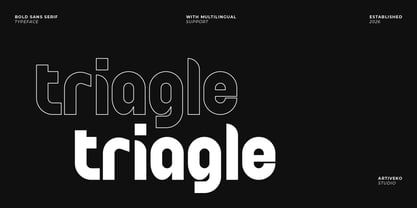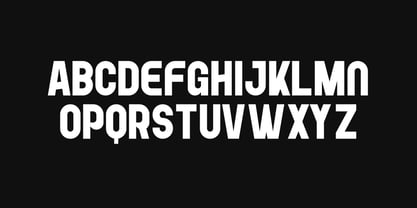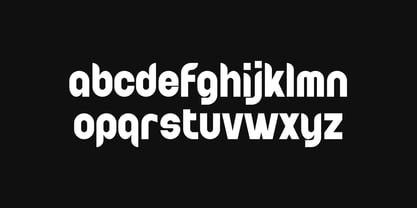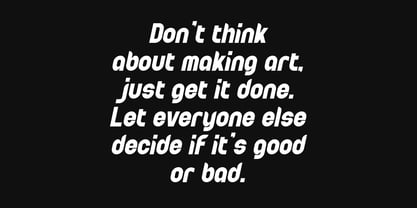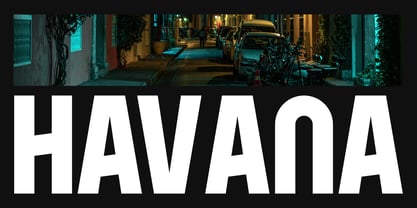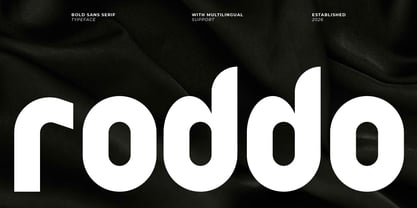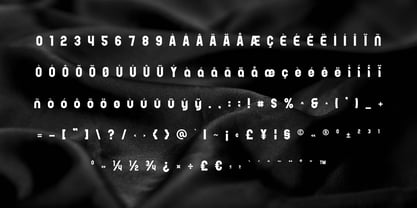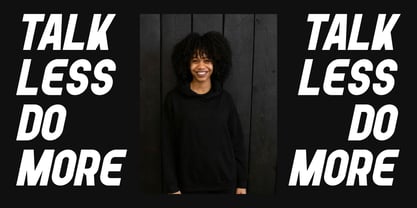
Roddo
by Artiveko
The Roddo Font Family was designed by Iwan Alwan and published by Artiveko. Roddo contains 2 styles and family package options. More about this family
Roddo is a rounded bold sans serif typeface that masterfully blends strength with a friendly and approachable personality. Featuring smooth curves, thick strokes, and balanced proportions, Roddo offers a soft yet confident appearance that makes a statement in contemporary design. This typeface is perfect for a variety of applications, including branding, logos, packaging, children’s products, food brands, social media graphics, and playful visual identities. Roddo fosters a warm and engaging tone while maintaining excellent readability. Its bold structure guarantees strong visibility, and the rounded edges contribute charm and friendliness. Roddo is the ideal choice for designers seeking a bold impact paired with a soft, human touch. More than just a font, Roddo embodies boldness, friendliness, and character, making it a standout option for any creative project.
Designers: Iwan Alwan
Foundry: Artiveko
Artiveko is a font design team based in Indonesia, comprised of several talented font designers who commenced their careers in the font design industry in 2020. With a dedicated focus on crafting fonts, the team members bring their collective expertise and passion to every project they undertake. Situated in Indonesia, Artiveko draws inspiration from the vibrant cultural landscape of the region, infusing their creations with unique flavors and aesthetics.The team's font collection encompasses a diverse range of styles, including serif, sans serif, handwritten, and script typefaces. Each typeface is meticulously crafted to meet the demands of modern design while offering versatility and functionality across various applications. Whether it's the classic elegance of serif fonts, the contemporary appeal of sans serif designs, the personal touch of handwritten scripts, or the expressive flourishes of script fonts, Artiveko ensures that every font reflects their dedication to quality and innovation.Artiveko's fonts have garnered recognition and acclaim, with their works being featured on prominent social media platforms like Creative Market. Through these platforms, the team has been able to connect with a global audience of designers and typographers, further amplifying their reach and influence in the industry. Their fonts are celebrated for their impeccable craftsmanship, attention to detail, and ability to elevate design projects with style and sophistication.As Artiveko continues to evolve and expand its font collection, the team remains committed to pushing the boundaries of typography and setting new standards of excellence. With a relentless focus on creativity, innovation, and collaboration, Artiveko strives to inspire and empower designers around the world with their distinctive and versatile font designs.